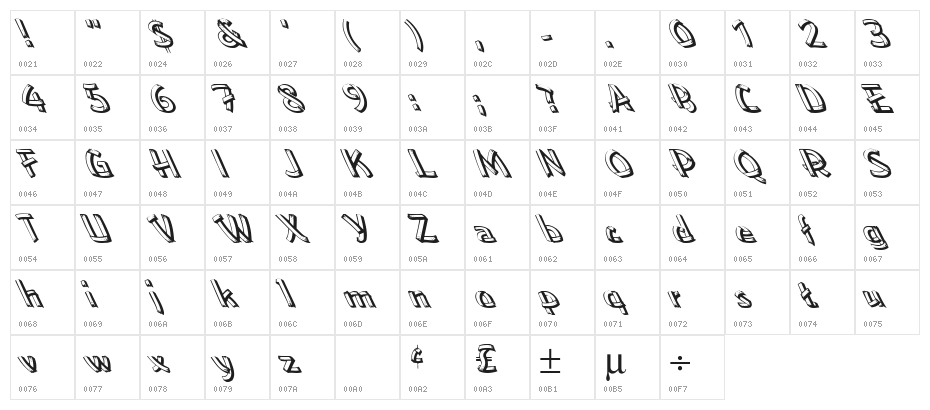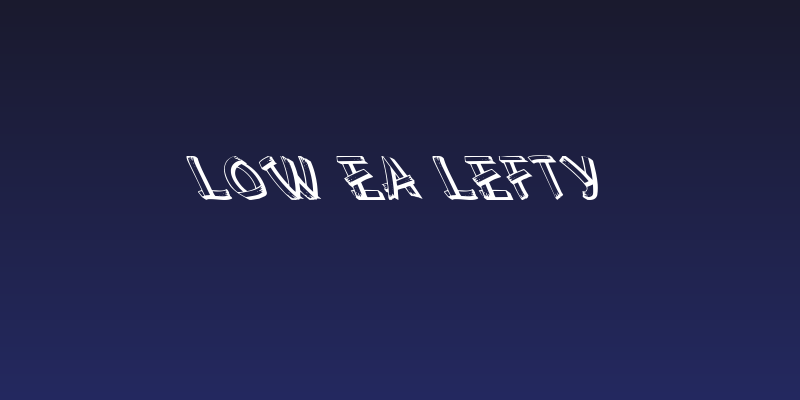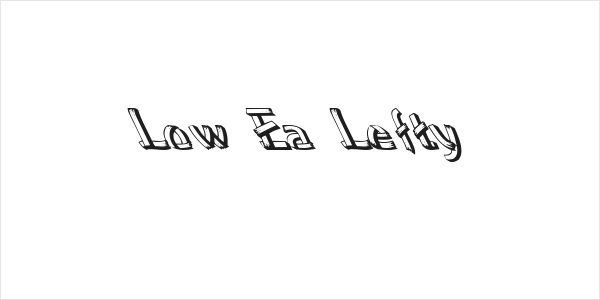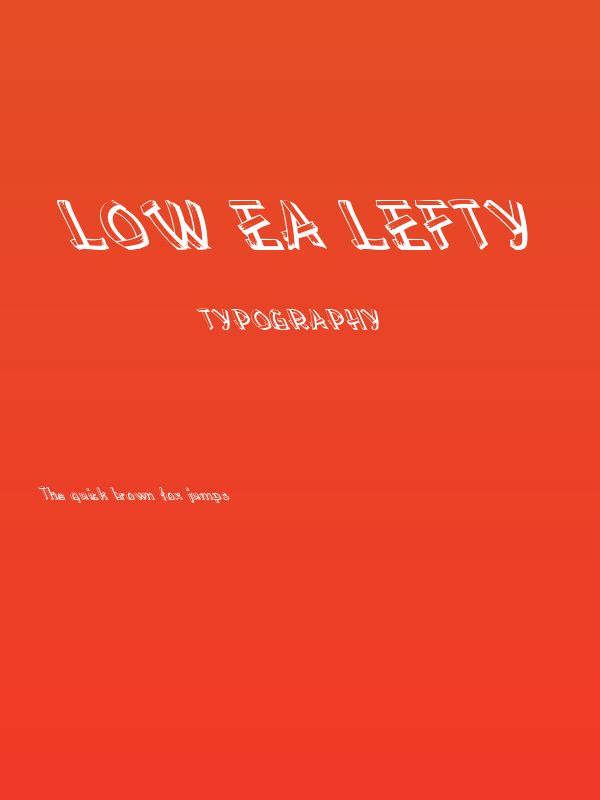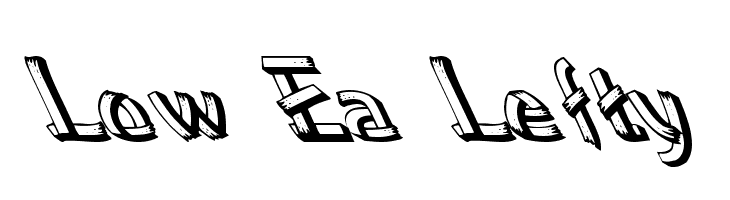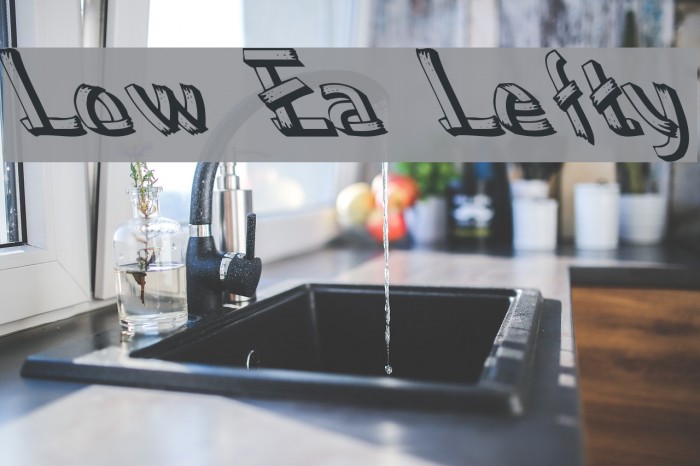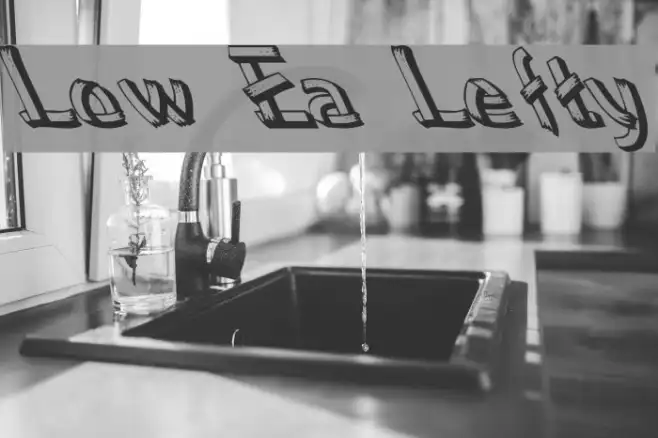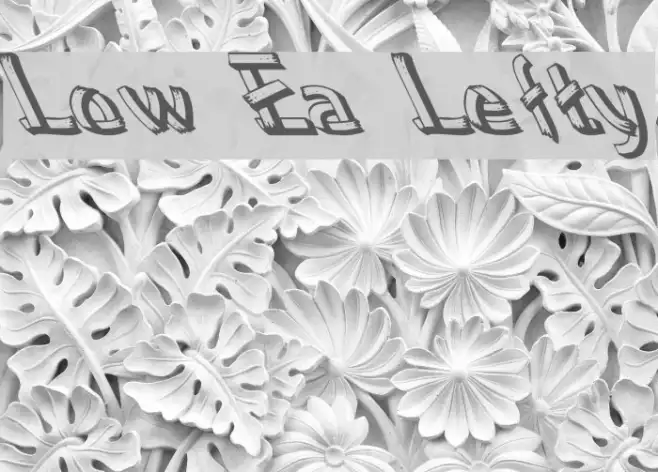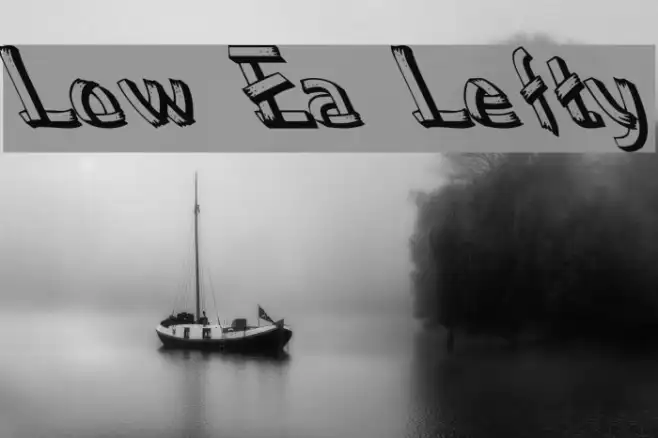
Low Ea Lefty Font
Low Ea Lefty Description
This font features a bold and dynamic style with a hand-drawn, sketch-like appearance. The characters are outlined with a thick, uneven stroke, giving them a rough, textured look. The letters have a playful and energetic feel, with varying line thicknesses that add to the overall lively aesthetic. The uppercase and lowercase letters maintain a consistent style, while the numbers and special characters complement the alphabet with similar design elements. This font stands out with its unique, artistic flair, making it ideal for creative and eye-catching designs.
| Proposed Projects | Ideal for comic book titles, posters, graffiti art, and creative branding projects. |